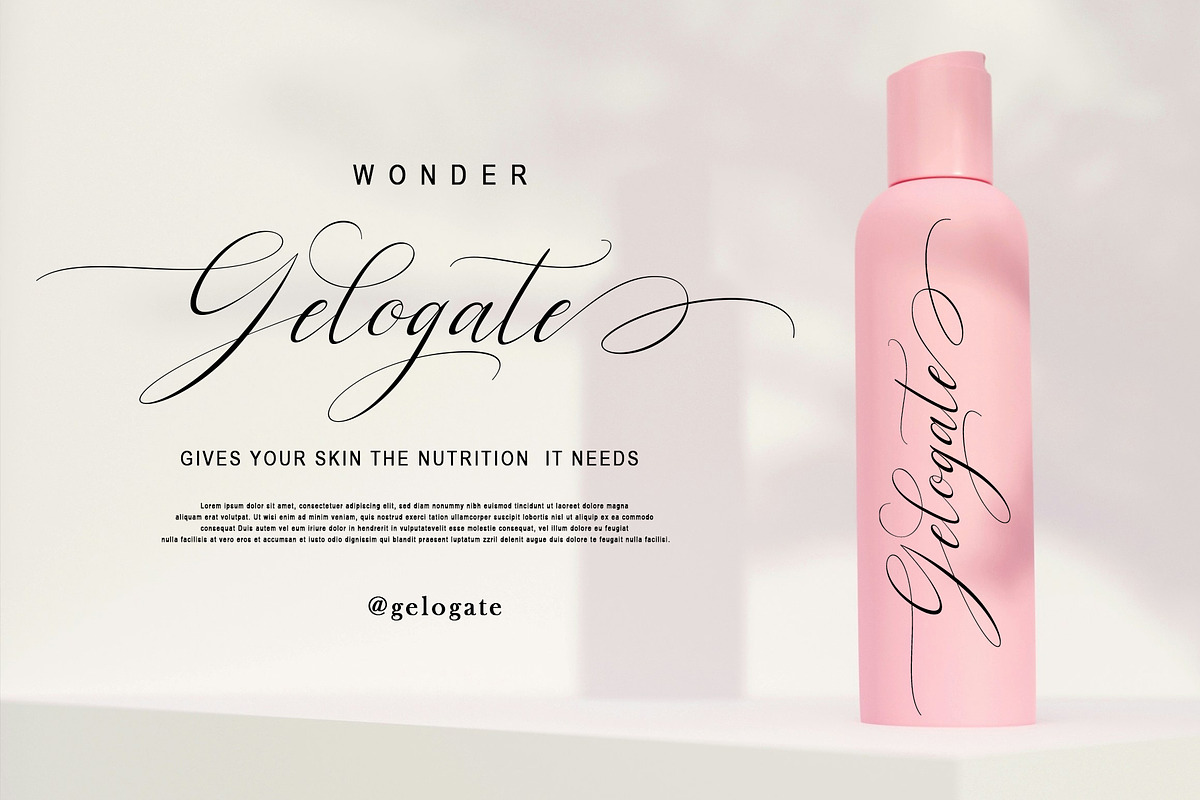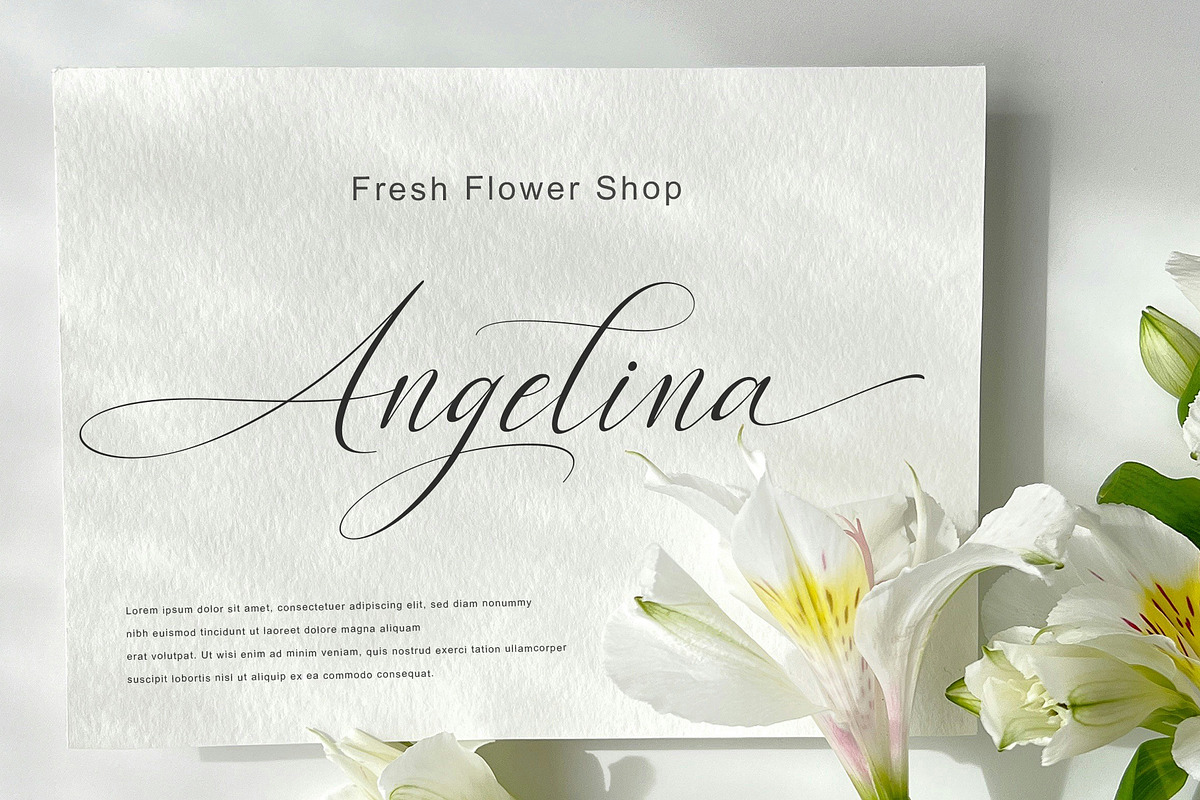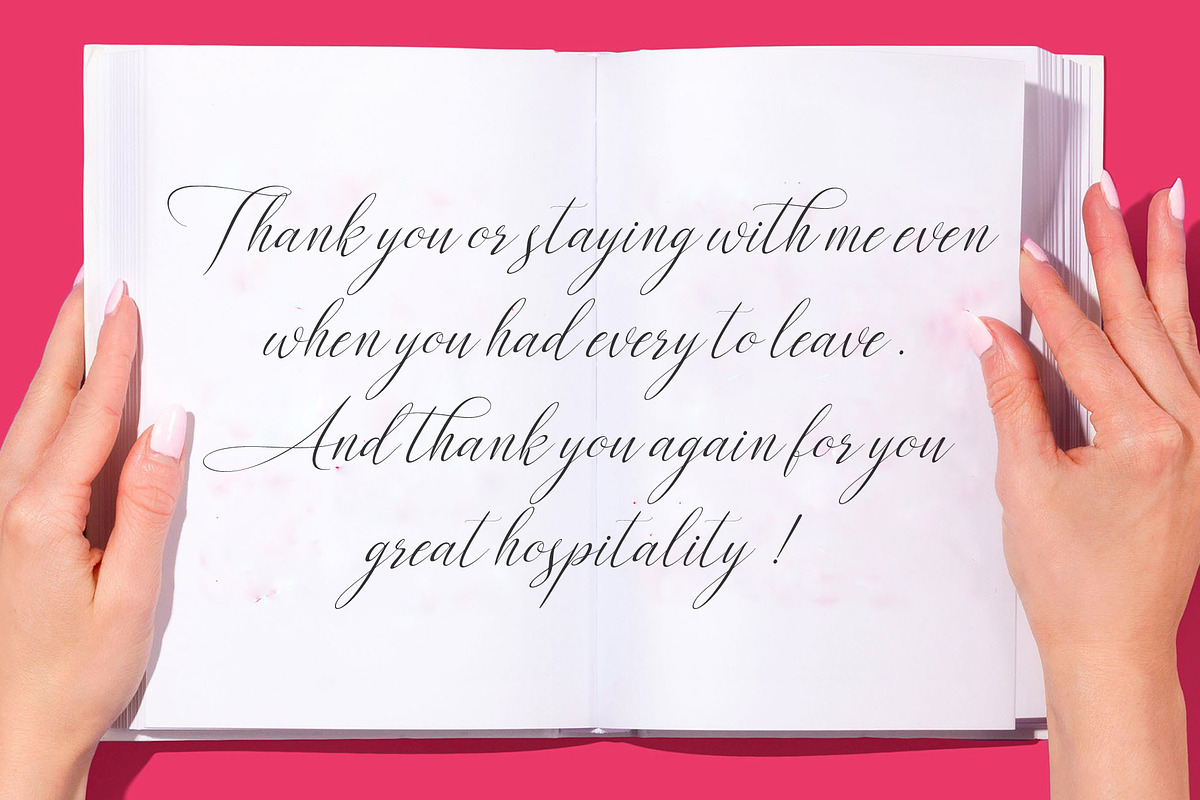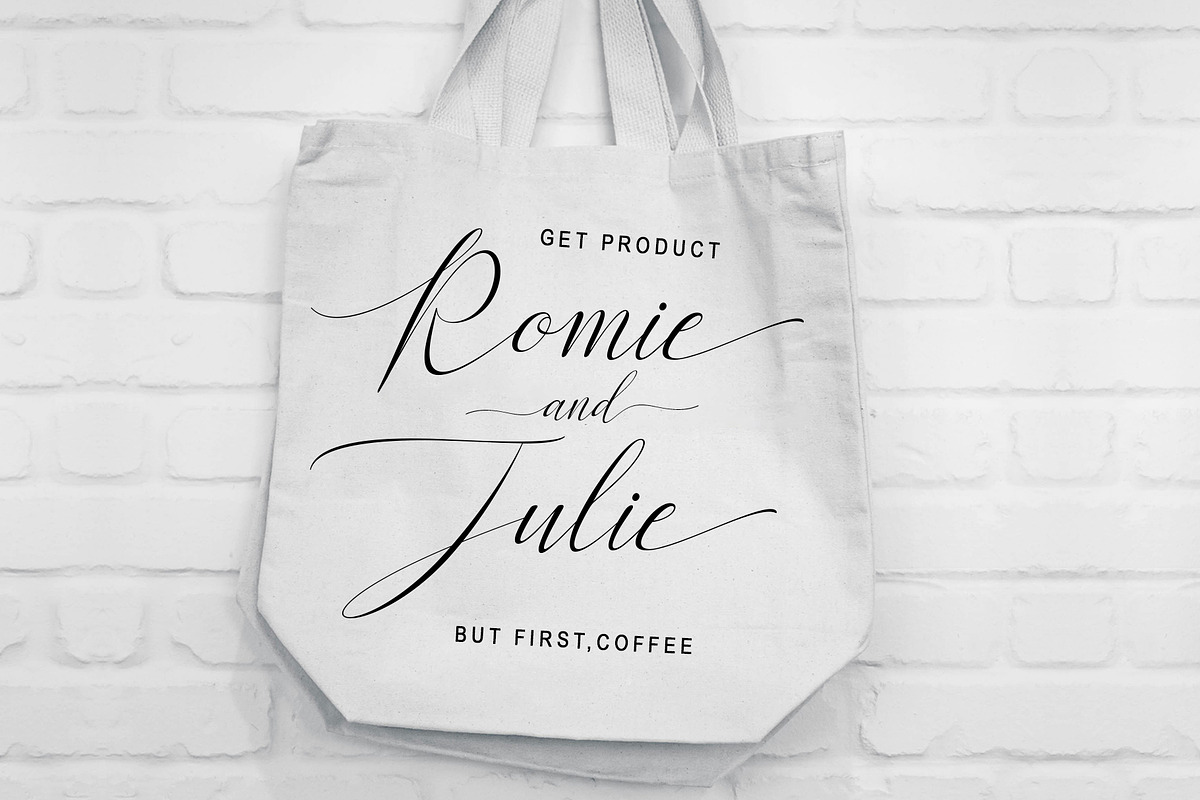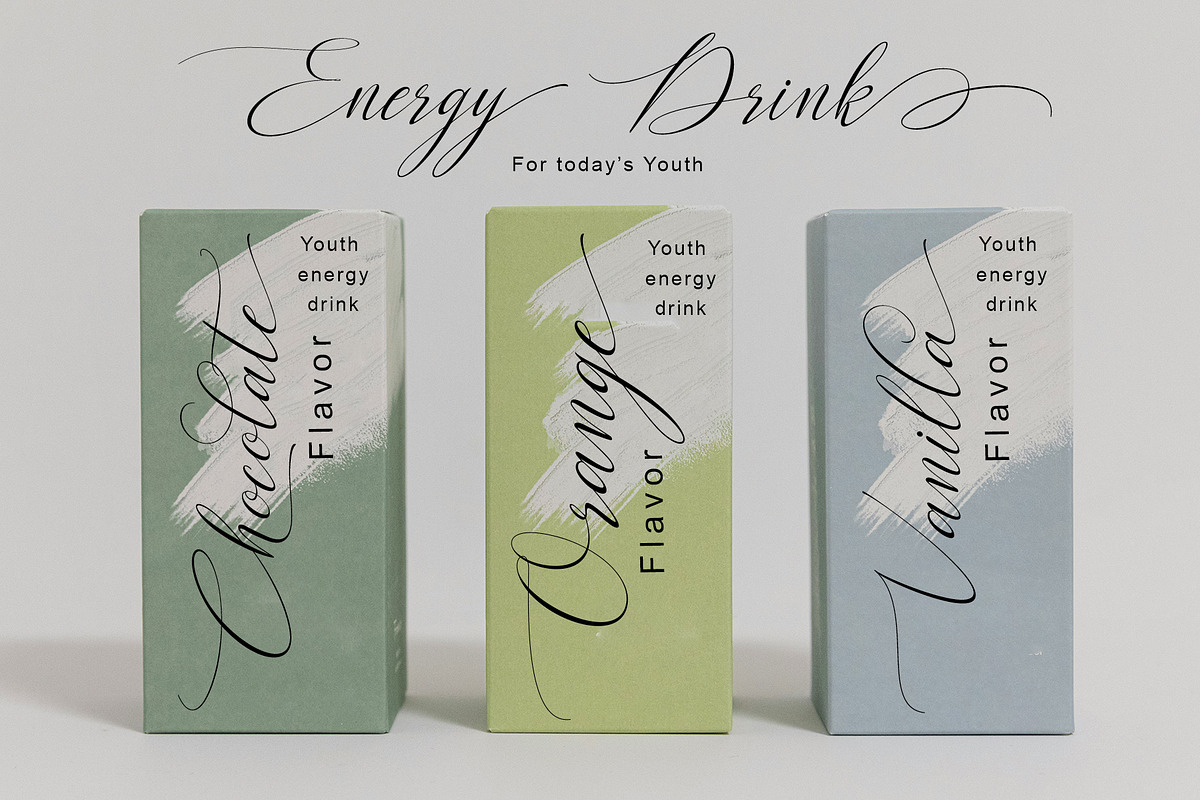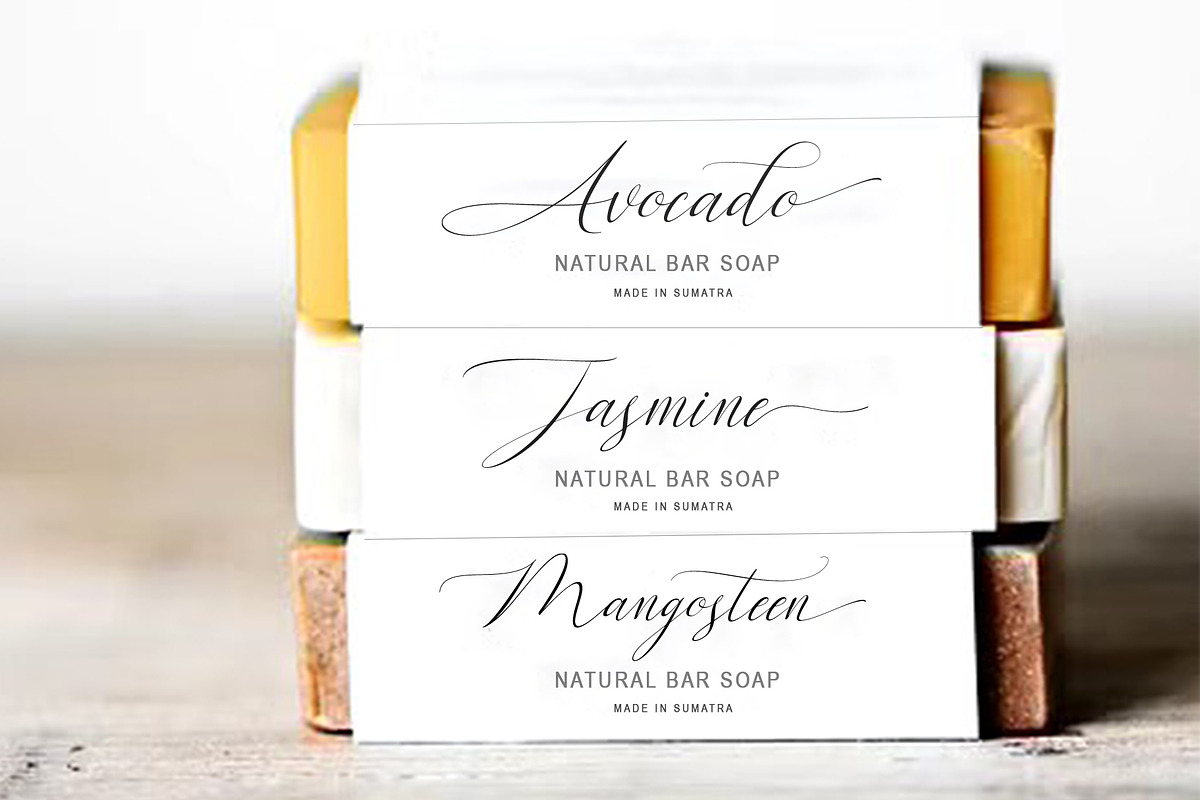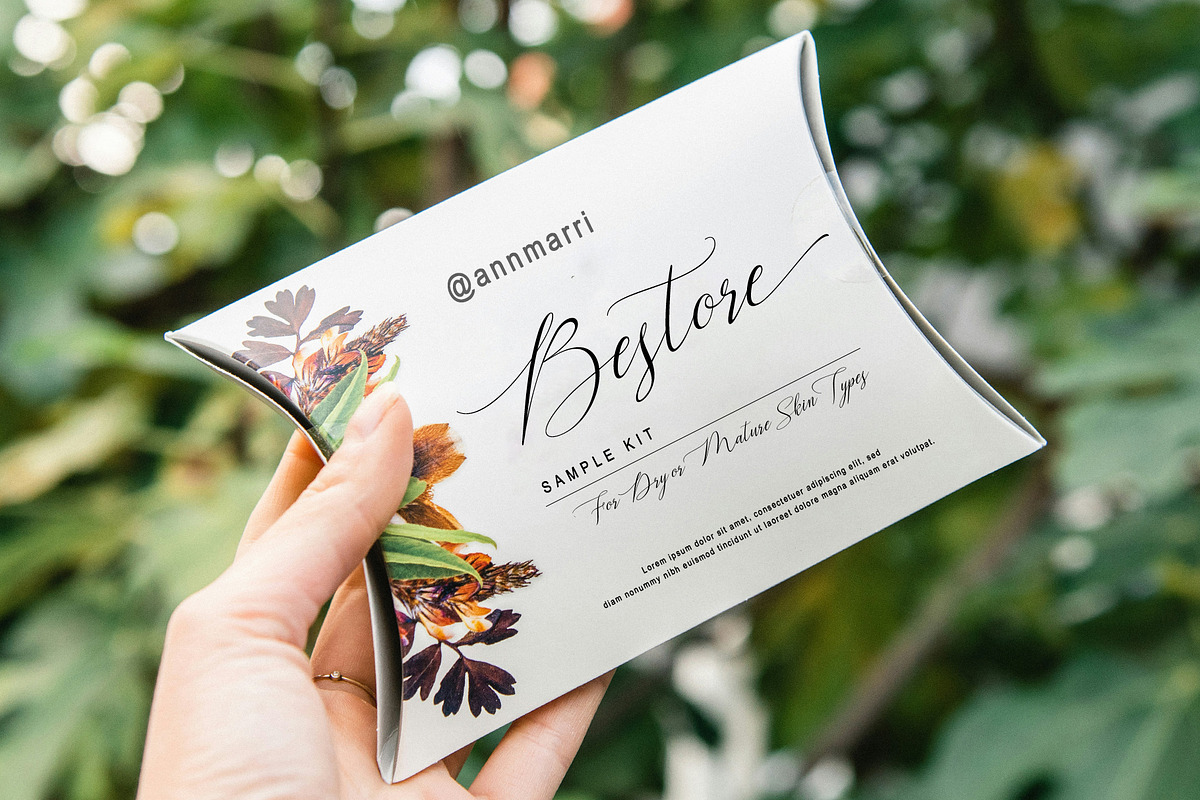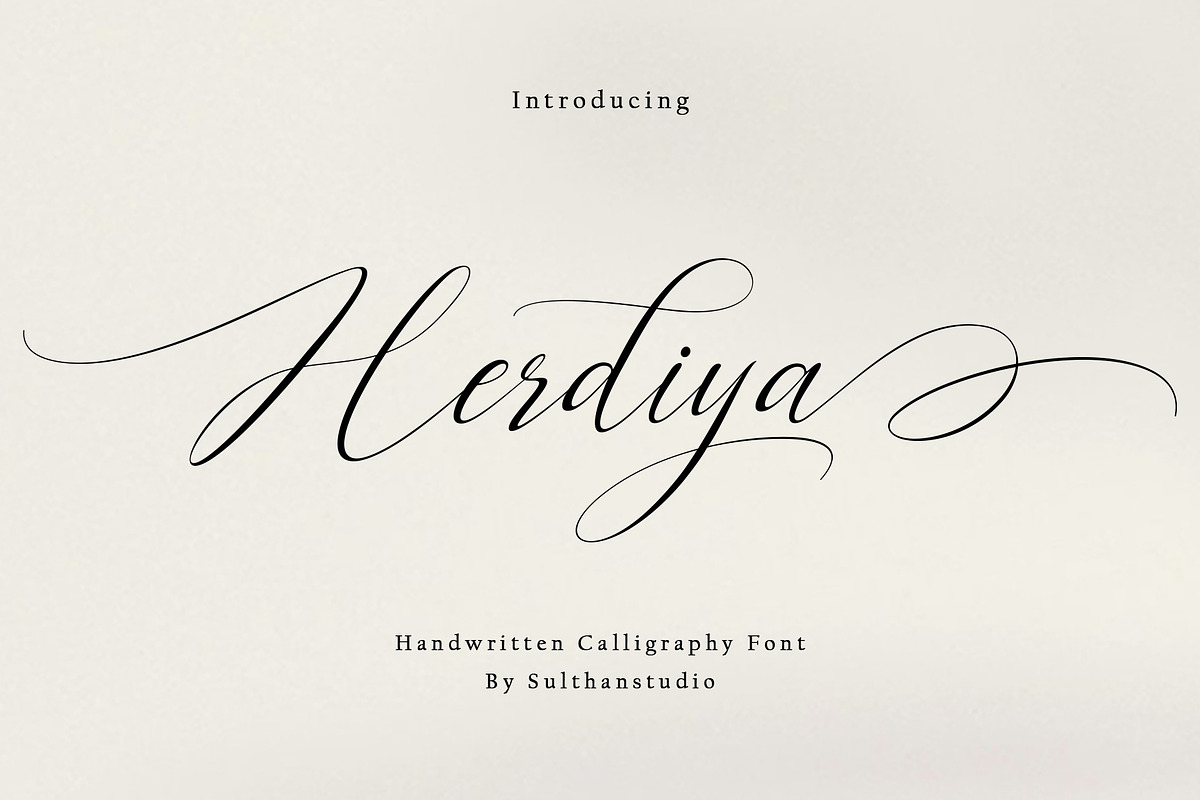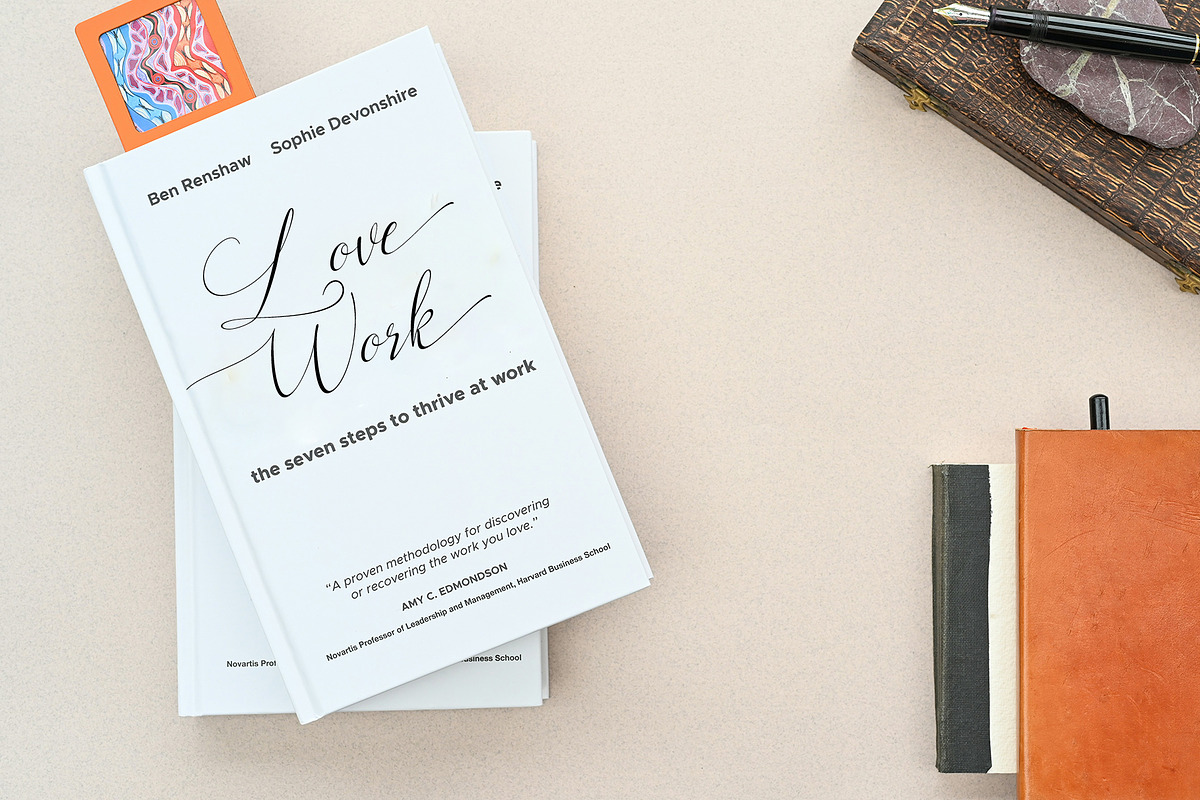
Herdiya
Introducing Our new product called Herdiya Calligraphy Modern. Herdiya font includes uppercase and lowercase letters, numbers, various punctuation marks, and ligatures. Uppercase and lowercase letters include initial and final swashes on lowercase letters, alternates and ligatures
FEATURES: Uppercase, lowercase, numbers, punctuation marks, multilingual ,swashes and ligatures.